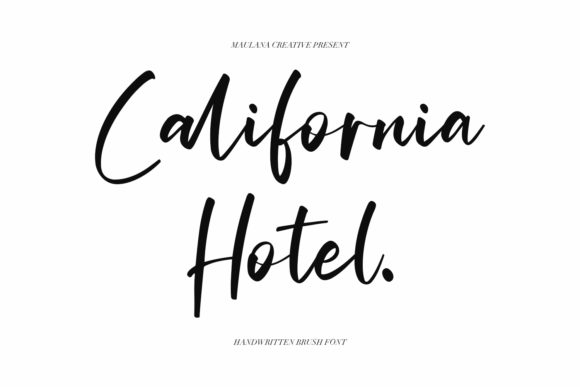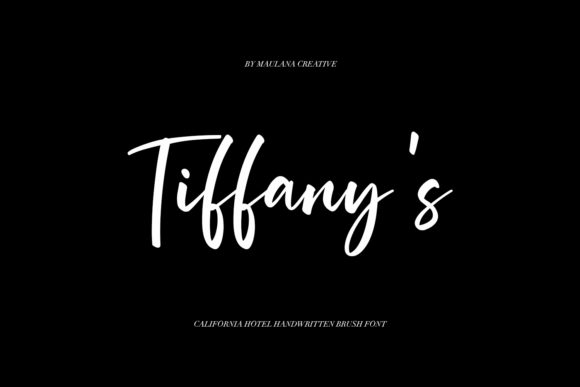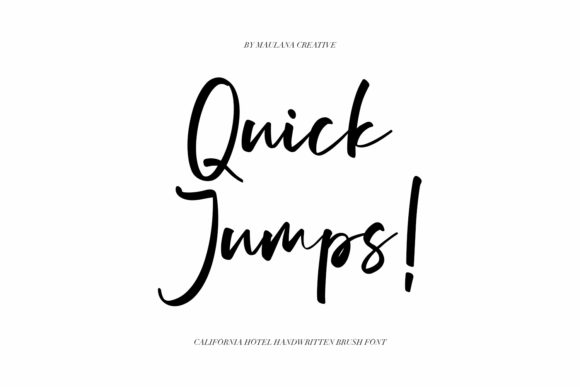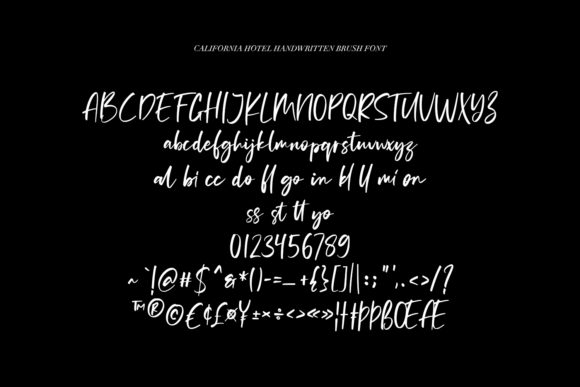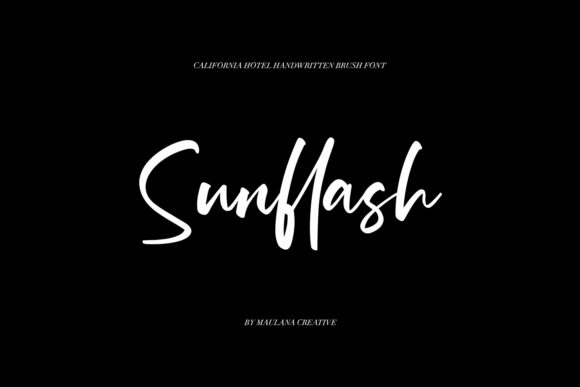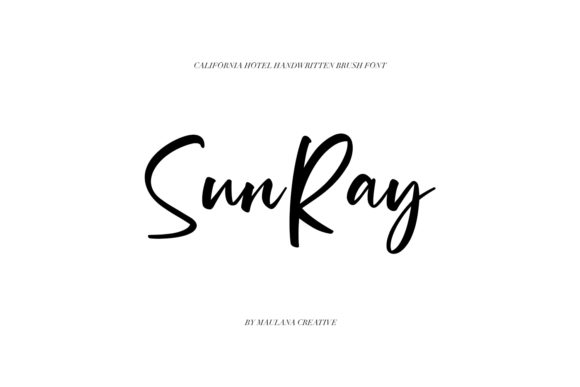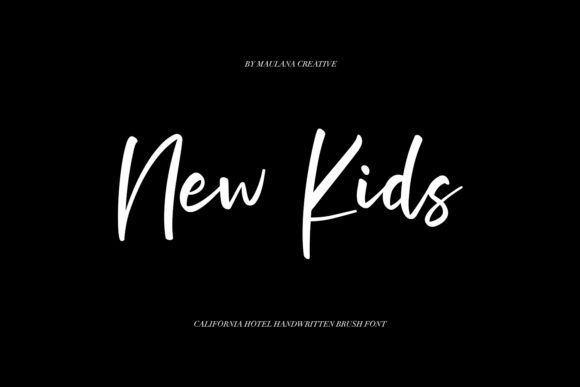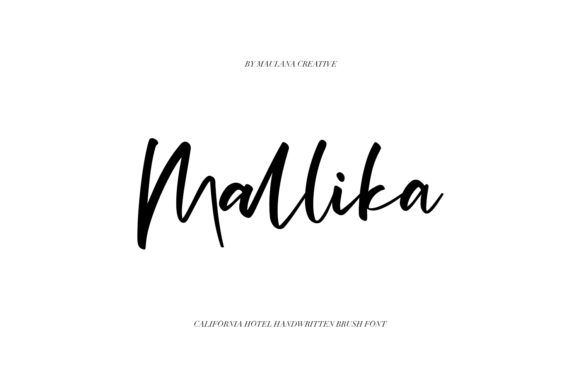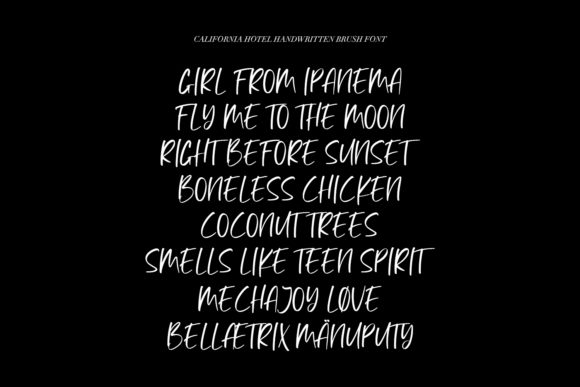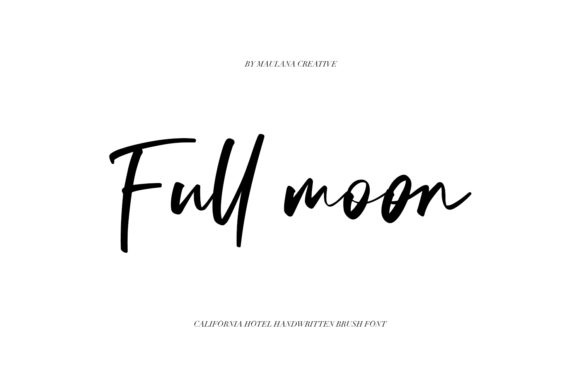
California Hotel Font
About California Hotel Font
California Hotel is a magical handwritten font carefully created with a touch of elegance. Whether you’re looking for fonts for Instagram or calligraphy scripts for DIY projects, this font will turn any creative idea into a true piece of art!